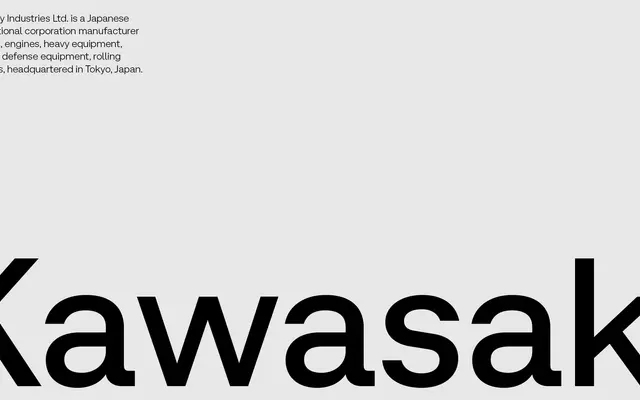
Micrograph
A mechanical sans serif with tight spacing, compact proportions and a clean aesthetic that sits between classical and contemporary models.
Designed with very short descenders and a compact vertical scale, it maintains legibility across a wide weight range from Thin to Black. A notable detail is the prominent punctuation in lighter weights that recedes as weight increases, adding quiet personality without disrupting utility. Available as static and variable fonts, with full italic companions throughout.
A clean, mechanical sans serif with tight spacing and compact vertical proportions, consistent with geometric sans traditions while leaning toward a neutral, technical aesthetic.